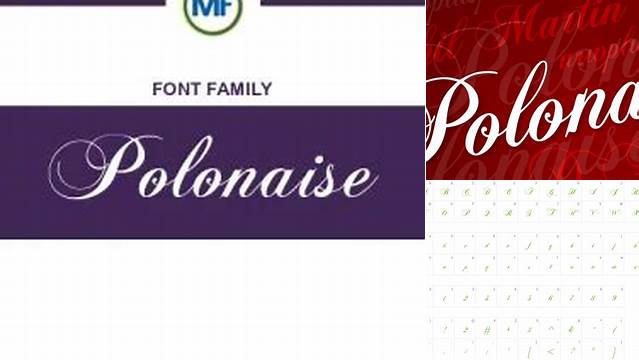
Hey guys! Are you looking to spice up your designs with a touch of elegance and boldness? Well, you've come to the right place! In this article, we're diving deep into the world of Polonaise Bold Font, and we'll show you how to get your hands on it for free. We'll cover everything from its unique characteristics to where you can download it and how to use it effectively in your projects. So, buckle up and let's get started!
Polonaise Bold Font: An Overview
Before we jump into the free download part, let’s get to know Polonaise Bold Font a little better. This font is known for its sophisticated and strong appearance. It's a perfect blend of classic and contemporary styles, making it versatile for various design applications. Whether you're working on a branding project, creating eye-catching headlines, or designing elegant invitations, Polonaise Bold Font can add that extra oomph your project needs. With its clean lines and bold strokes, this typeface commands attention while maintaining a sense of refinement. The distinct letterforms give it a unique personality, making it stand out from the crowd of generic fonts. Plus, its legibility at various sizes makes it practical for both print and digital media. This is a font you'll want in your toolkit!
1. Understanding the Elegance of Polonaise Bold
Polonaise Bold is more than just a font; it's an expression of elegance and strength. This typeface is characterized by its bold strokes and refined curves, making it a versatile choice for various design projects. Imagine using it for a luxury brand's logo or for the headlines of a fashion magazine. The font's unique structure and sophisticated appearance can instantly elevate the overall aesthetic of your design. It's not just about making the text readable; it's about conveying a feeling, a mood, a sense of class. Polonaise Bold achieves this through its carefully crafted letterforms, which balance boldness with grace. The robust strokes ensure visibility, while the elegant curves add a touch of sophistication. This balance makes it ideal for projects that require a strong yet refined visual impact. It's also worth noting the attention to detail in the font's design, from the subtle serifs to the consistent weight distribution across each character. This meticulous craftsmanship ensures that Polonaise Bold stands out as a premium typeface. Whether you're a seasoned designer or just starting, understanding the elegance of Polonaise Bold will help you use it effectively in your projects.
2. Key Features of Polonaise Bold Font
When we talk about fonts, it's not just about how they look; it's also about their functionality and features. Polonaise Bold font comes packed with some impressive key features that make it a top choice for designers. First off, its bold weight ensures maximum impact, perfect for headlines and titles that need to grab attention. But it's not just about being bold; the font also maintains a level of sophistication with its elegant curves and refined details. This blend of strength and grace makes it versatile for a wide range of projects. Another key feature is its legibility. Despite its boldness, Polonaise Bold is easy to read, even at smaller sizes. This makes it suitable for both print and digital applications. The spacing between letters is carefully considered, ensuring a smooth reading experience. The font also supports a wide range of characters, including numerals, punctuation, and special symbols, which is essential for professional design work. Plus, Polonaise Bold often comes with multiple weights and styles in a font family, giving you even more flexibility. For example, you might find Polonaise Regular, Italic, and other variations, allowing you to create a cohesive visual hierarchy in your designs. These features combine to make Polonaise Bold a powerful tool in any designer's arsenal.
6. Using Polonaise Bold in Graphic Design Projects
Now that you've got Polonaise Bold installed, let's talk about how to actually use it in your graphic design projects. This font is incredibly versatile, but it shines brightest when used strategically. Think about your overall design goals first. Are you aiming for a classic, elegant look, or something more modern and edgy? Polonaise Bold can work for both, but the key is in how you pair it with other elements. For a classic feel, consider using it in logos, headlines, and branding materials. Its bold weight and sophisticated curves make it stand out, while its refined details add a touch of class. Pair it with a clean, simple sans-serif font for body text to create a balanced and readable design. If you're going for a more modern look, try using Polonaise Bold in unexpected ways. Maybe use it for a short, impactful tagline or as a decorative element. Experiment with different sizes and weights within the font family to create visual interest. In web design, Polonaise Bold can be a great choice for headings and call-to-action buttons. Just be mindful of readability, especially on smaller screens. Test how the font renders on different devices to ensure it looks its best. In print design, Polonaise Bold is perfect for posters, flyers, and brochures. Its bold presence commands attention, making it ideal for grabbing the viewer's eye. By understanding the strengths of Polonaise Bold and using it thoughtfully, you can create designs that are both visually stunning and highly effective.
7. Polonaise Bold for Branding Purposes
When it comes to branding, the fonts you choose play a crucial role in shaping your brand's identity. Polonaise Bold can be an excellent choice for branding purposes, particularly if you want to convey a sense of sophistication, strength, and elegance. Imagine using Polonaise Bold in your logo – its bold weight and refined curves can create a powerful visual impact that makes your brand stand out. The font's unique character can also help your brand communicate its personality. Is your brand classic and timeless, or modern and innovative? Polonaise Bold can adapt to different brand aesthetics, but it's especially well-suited for brands that want to project a sense of luxury and high quality. Think about how you can incorporate Polonaise Bold into your overall brand identity. It's not just about the logo; consider using it in your website design, marketing materials, and even your social media graphics. Consistency is key when it comes to branding, so make sure you're using Polonaise Bold (or a similar font) across all your brand touchpoints. It's also important to think about how Polonaise Bold pairs with other fonts in your brand palette. A clean, simple sans-serif font often works well for body text, creating a balance between the bold headlines and the more readable text. By strategically using Polonaise Bold in your branding, you can create a visual identity that is both memorable and effective.
8. Pairing Polonaise Bold with Other Fonts
Choosing the right font pairings can make or break your design. While Polonaise Bold is a stunning typeface on its own, it really shines when paired thoughtfully with other fonts. The goal is to create a visual hierarchy that is both pleasing to the eye and easy to read. So, what fonts work well with Polonaise Bold? Generally, it pairs best with clean, simple sans-serif fonts. These fonts provide a contrast to Polonaise Bold's elegant curves and bold weight, creating a balanced and harmonious look. Think about fonts like Open Sans, Roboto, or Montserrat. These are all versatile sans-serif typefaces that are highly legible and complement Polonaise Bold beautifully. For body text, you'll want something that is easy to read at smaller sizes. A simple sans-serif is often the best choice, as it won't compete with the more decorative Polonaise Bold. However, don't be afraid to experiment with subtle serif fonts as well. A classic serif font like Garamond or Times New Roman can add a touch of sophistication to your design. When pairing fonts, consider the overall tone of your project. Is it formal or informal? Modern or classic? The fonts you choose should reflect the message you're trying to convey. Ultimately, the best way to find the perfect font pairing is to experiment and see what works best for your specific project.
30. Polonaise Bold: A Timeless Font for Modern Designs
In conclusion, Polonaise Bold is a timeless font that remains relevant and impactful in modern design. Its blend of elegance, strength, and versatility makes it a valuable asset for designers working on a wide range of projects. From branding and editorial design to web and print materials, Polonaise Bold can help you create designs that are both visually stunning and highly effective. By understanding its unique characteristics and following best practices for its use, you can leverage the power of Polonaise Bold to elevate your designs and communicate your message with clarity and style. So go ahead, download Polonaise Bold (or a similar alternative), and start experimenting! You might just discover your new favorite typeface.